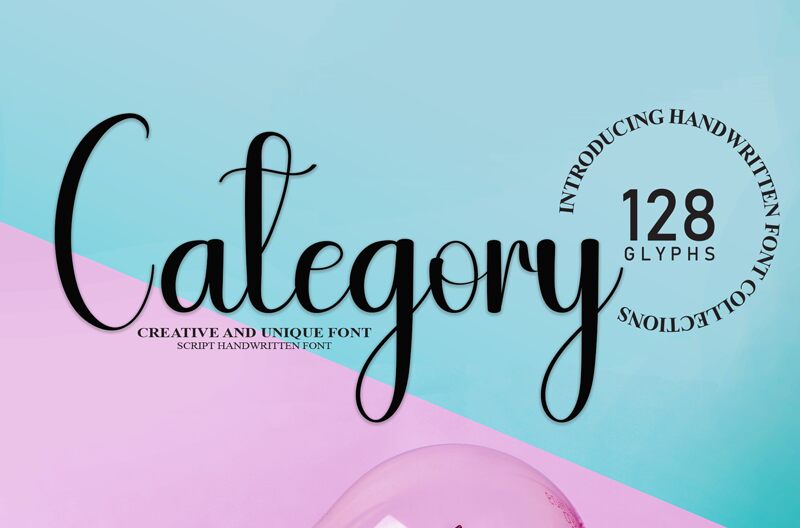
Category is a captivating calligraphic font designed by Andi Moz. This elegant script boasts fluid, sweeping strokes that emanate a sense of grace and sophistication. The harmonious interplay of thick and thin lines creates a refined, yet highly expressive aesthetic, evoking a timeless, artistic quality.
Category's versatility makes it a compelling choice for a wide range of design applications, from high-end branding and editorial layouts to wedding stationery and event invitations. Its calligraphic flair and organic flourishes lend themselves beautifully to projects seeking a touch of handcrafted elegance and visual allure.